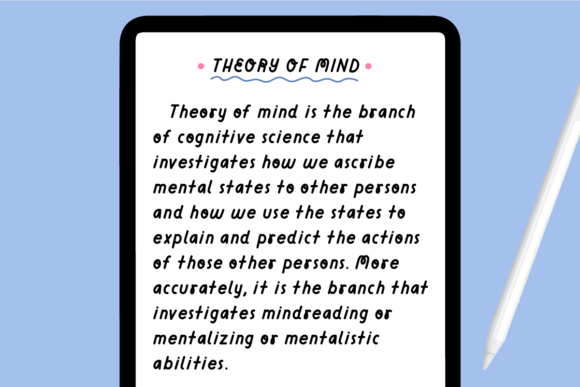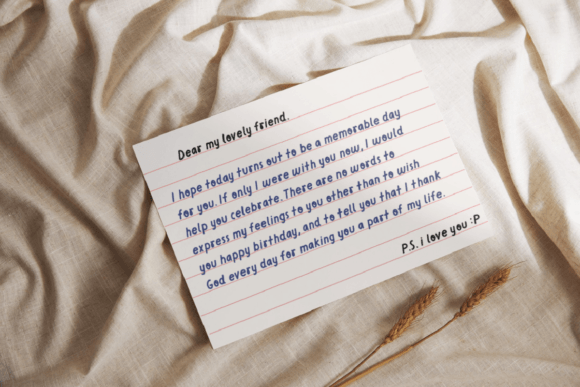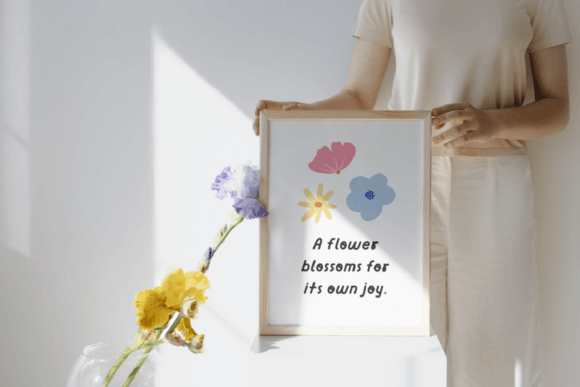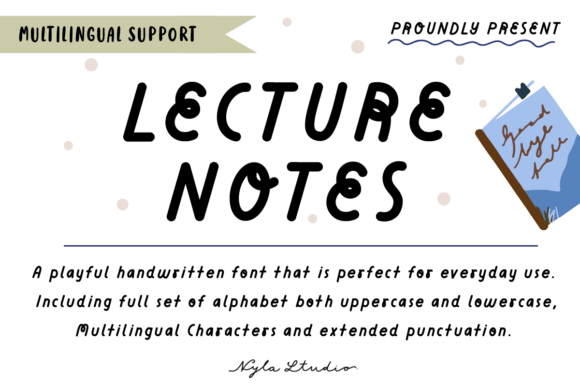
Introduction to Lecture Note Font
Lecture Note is a playful handwritten font.
Perfect for everyday use such as writing diary or note, creating posters, logos, greeting cards, packaging and so much more .
Lecture Note Font offers exceptional quality and versatility, making it a valuable addition to your design toolkit. Whether you’re creating for personal projects or commercial use, Lecture Note Font delivers professional results.